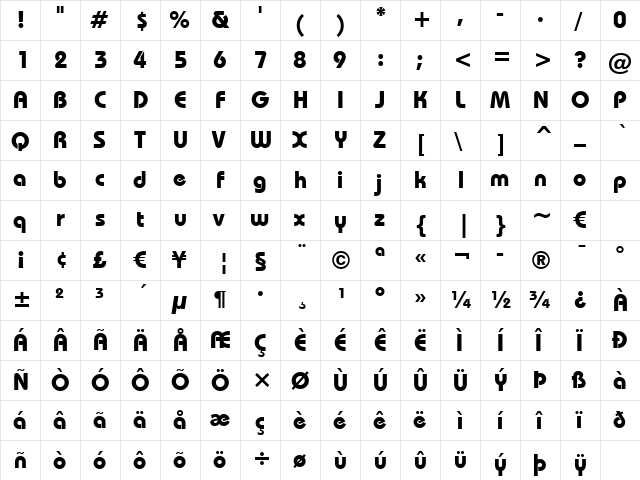
font51 Bold
Design Context for font51 Typeface
font51 takes a measured approach to typography — its balanced proportions and neutral character make it a reliable workhorse for both digital and print work. The heavy weight commands attention and anchors typographic hierarchies.